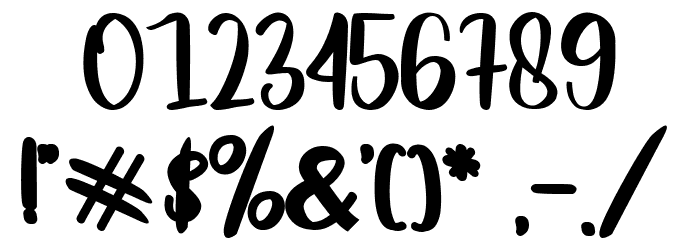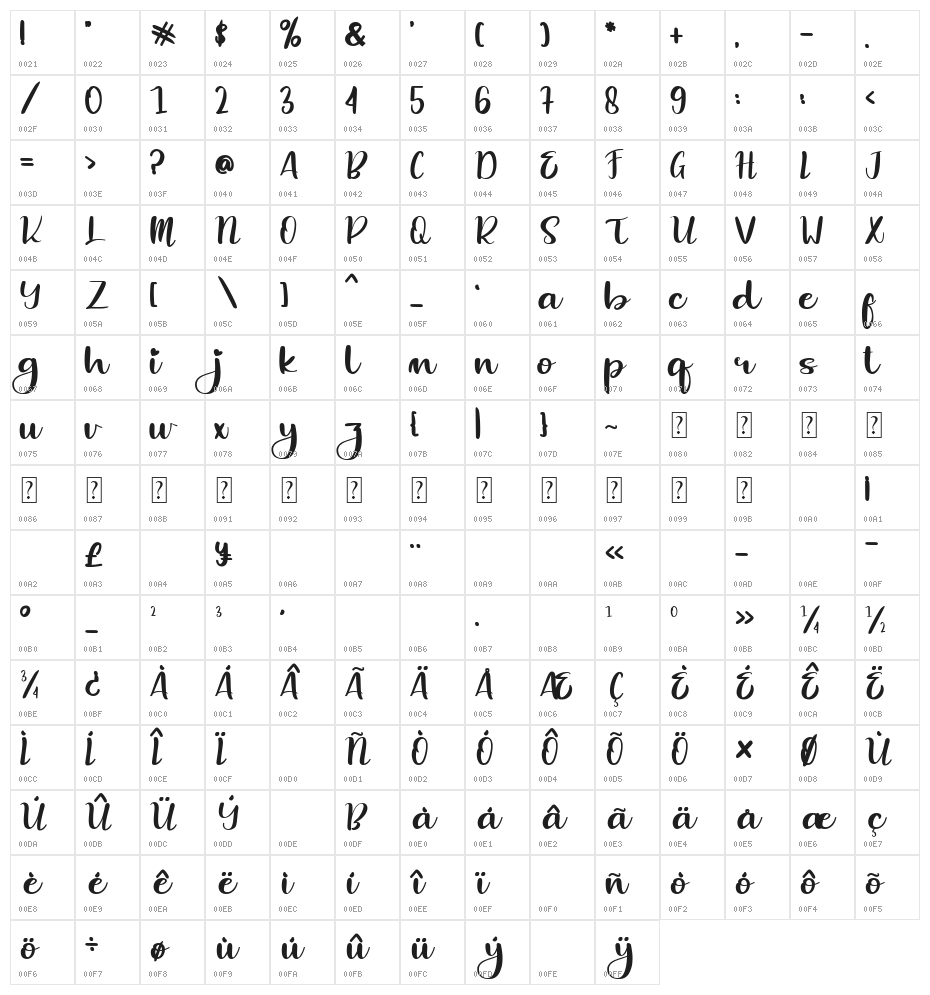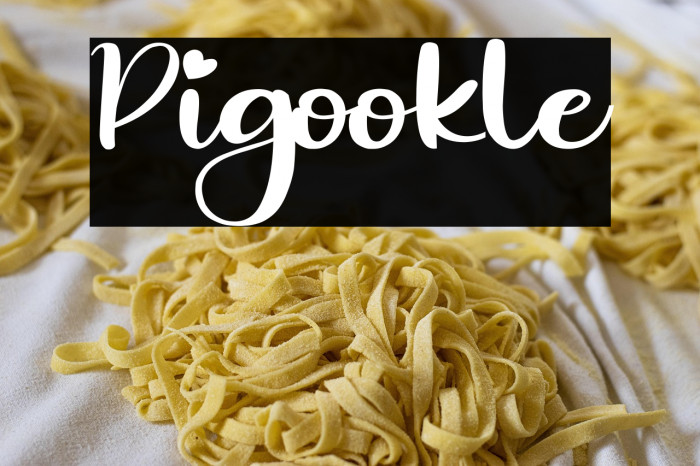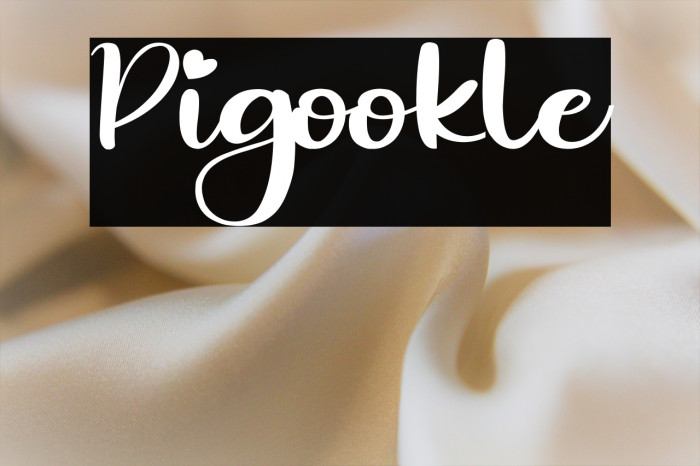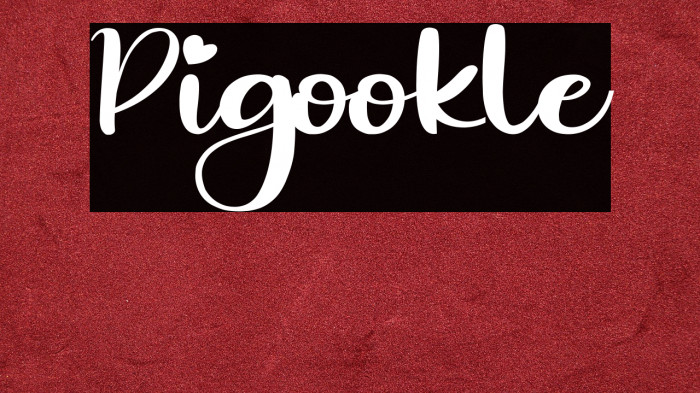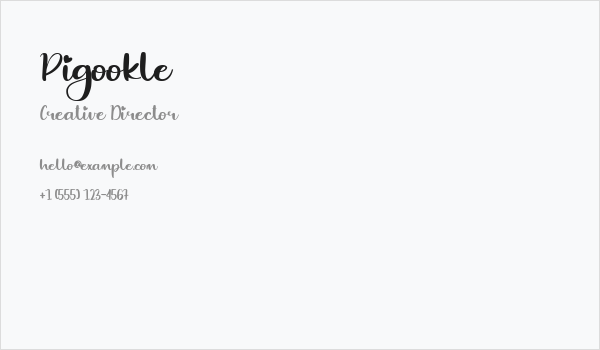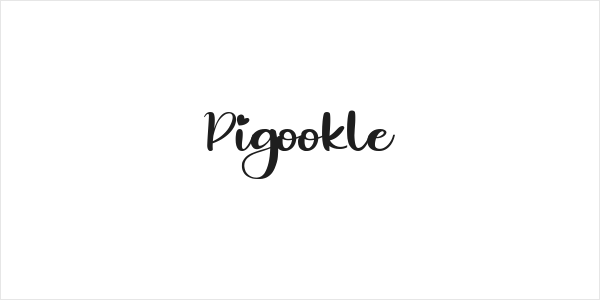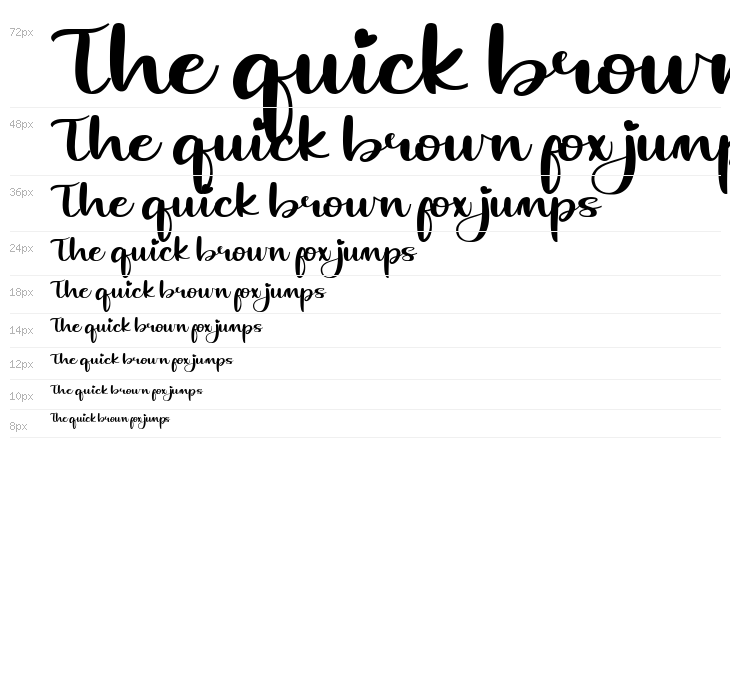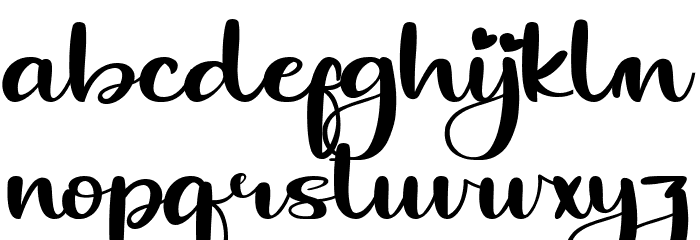
Pigookle Font
Pigookle Description
This font features a bold and expressive script style, characterized by its fluid and dynamic strokes. The uppercase letters are elegantly curved, with a consistent flow that adds a sense of movement and grace. The lowercase letters maintain this fluidity, with some characters featuring distinctive loops and swashes that enhance the font's decorative appeal. The numerals are bold and clear, ensuring readability while maintaining the overall artistic style. Special characters are creatively designed, adding to the font's versatility and charm. This font is ideal for projects that require a touch of elegance and personality.